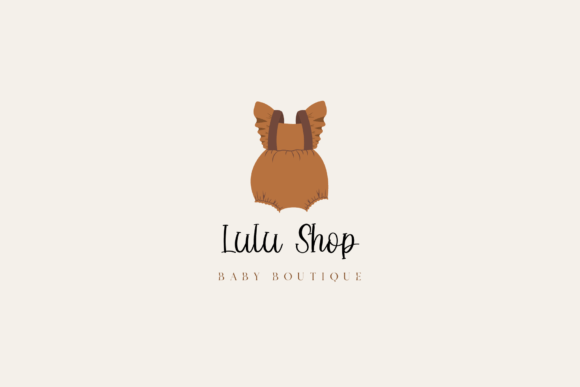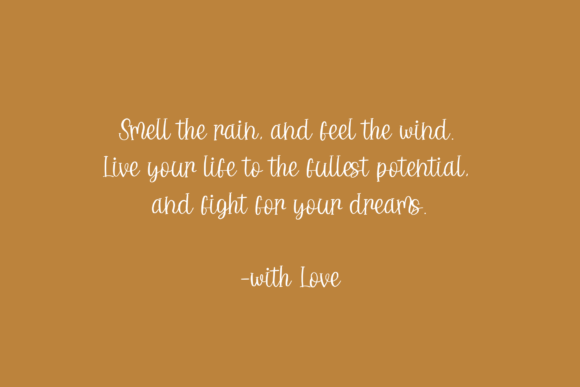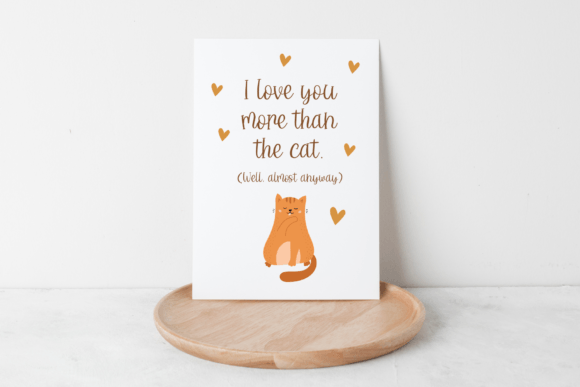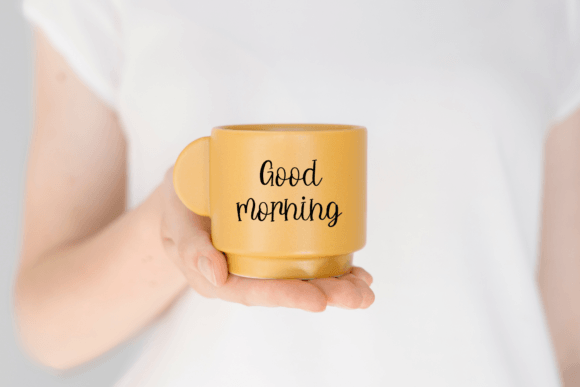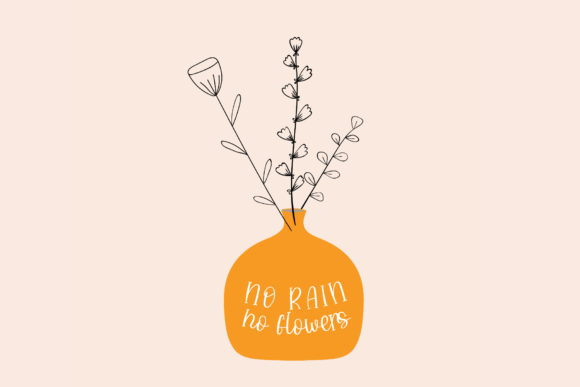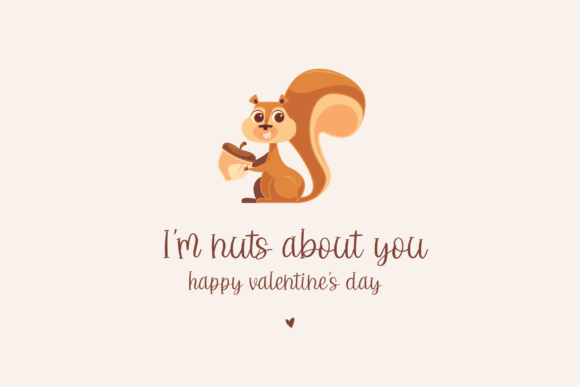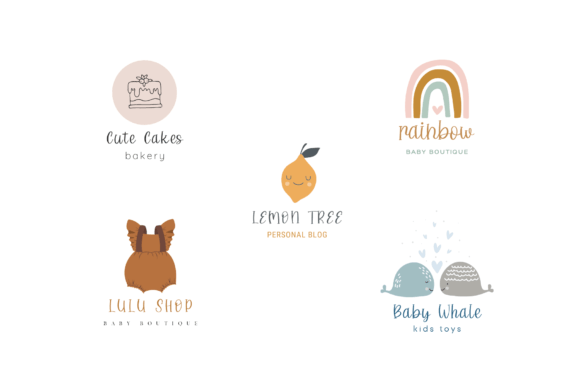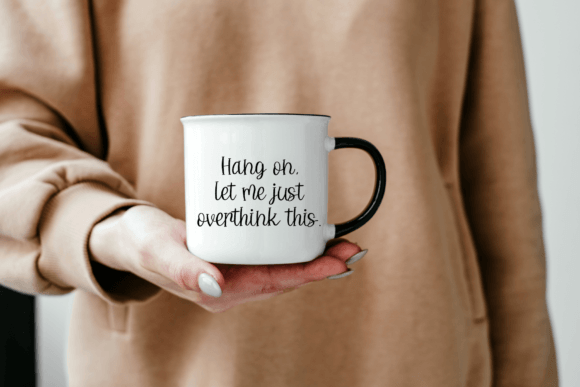
Aubergine Font
Aubergine is an adorable and charming handwritten font designed to add a touch of sweetness and whimsy to your creative projects. Its playful curves and delightful details make it a perfect choice for designs that need a fun, lighthearted, and friendly vibe. Whether you are working on greeting cards, invitations, or social media graphics, Aubergine brings a joyful and youthful energy to every piece.
This cute font is ideal for branding projects that aim to connect with audiences through warmth and approachability. Its friendly style suits a variety of applications, including logos, packaging, and promotional materials. With Aubergine, you can easily create designs that feel personal and inviting, helping your brand to stand out in a crowded marketplace.
One of the greatest strengths of Aubergine font is its versatility. Although it has a distinctive playful personality, it remains legible and clear, making it suitable for both digital and print use. From banners and posters to product packaging and blogs, this font enhances every design with its unique charm.
Additionally, Aubergine’s carefully crafted letterforms provide a smooth flow and natural rhythm, allowing for beautiful text compositions. Its balance of elegance and fun ensures that your messages come across with both style and clarity.
This font is also great for adding a cute touch to children’s projects, party invitations, or holiday cards, where a joyful and lively atmosphere is desired. The font’s handcrafted feel makes each letter look fresh and engaging, inviting the viewer to connect emotionally with the design.
Overall, Aubergine is a must-have font for designers looking to add playfulness and cuteness to their projects.Try Aubergine today and bring a fresh burst of charm to your next design!